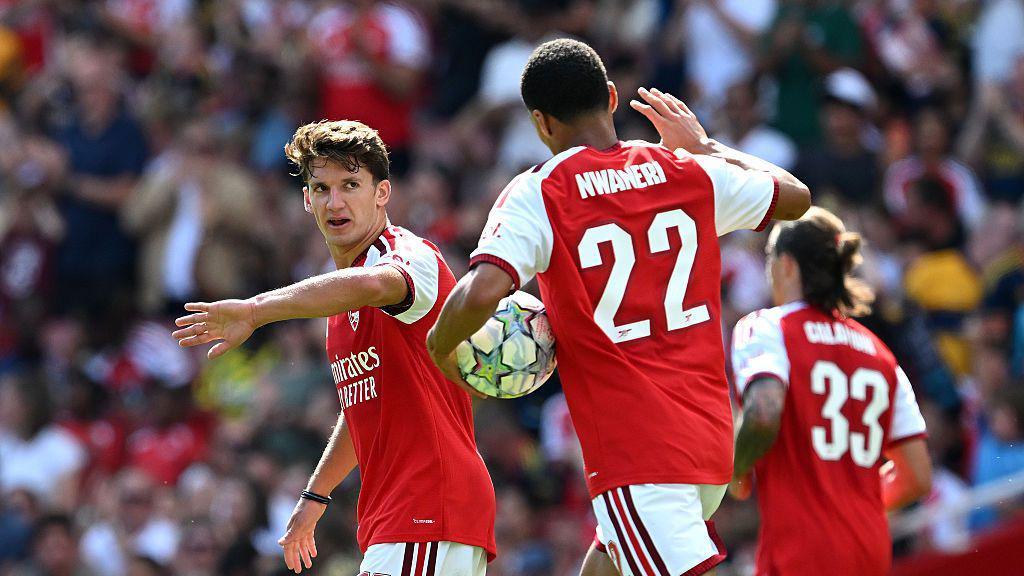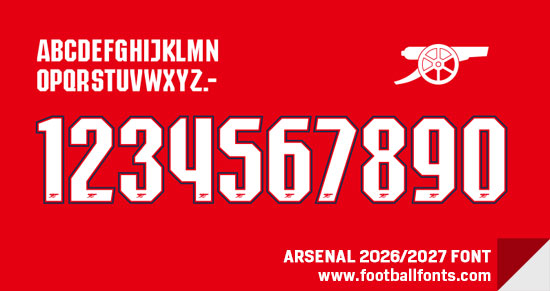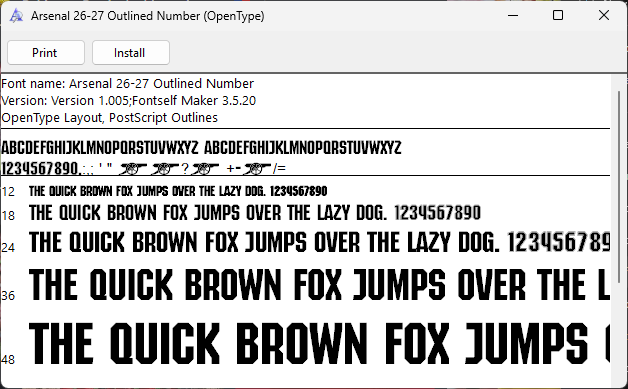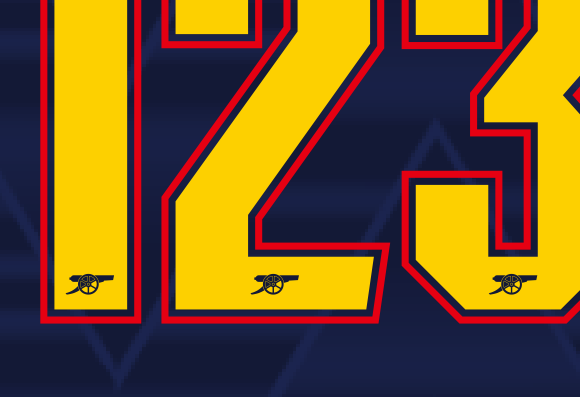
Arsenal 2026/2027 Font (OTF & Vector)
This is the look of Arsenal font that will be used for their kit in all non Premier League matches in 2026/2027 season, including EFL Cup, FA Cup and Champions League.
Arsenal 2026/2027 Font
We have font that you can use as Arsenal 2026/2027 font which is general font with all plain letters and numbers (with no club logo in the bottom of numbers). This font you can use for shirts name and shorts number, or you also use it for back number and add the logo manually.
We also provide numbers in vector file (eps and pdf) for more detail number with club logo in the bottom of the numbers. Also color variations for their home, away, and third kits.